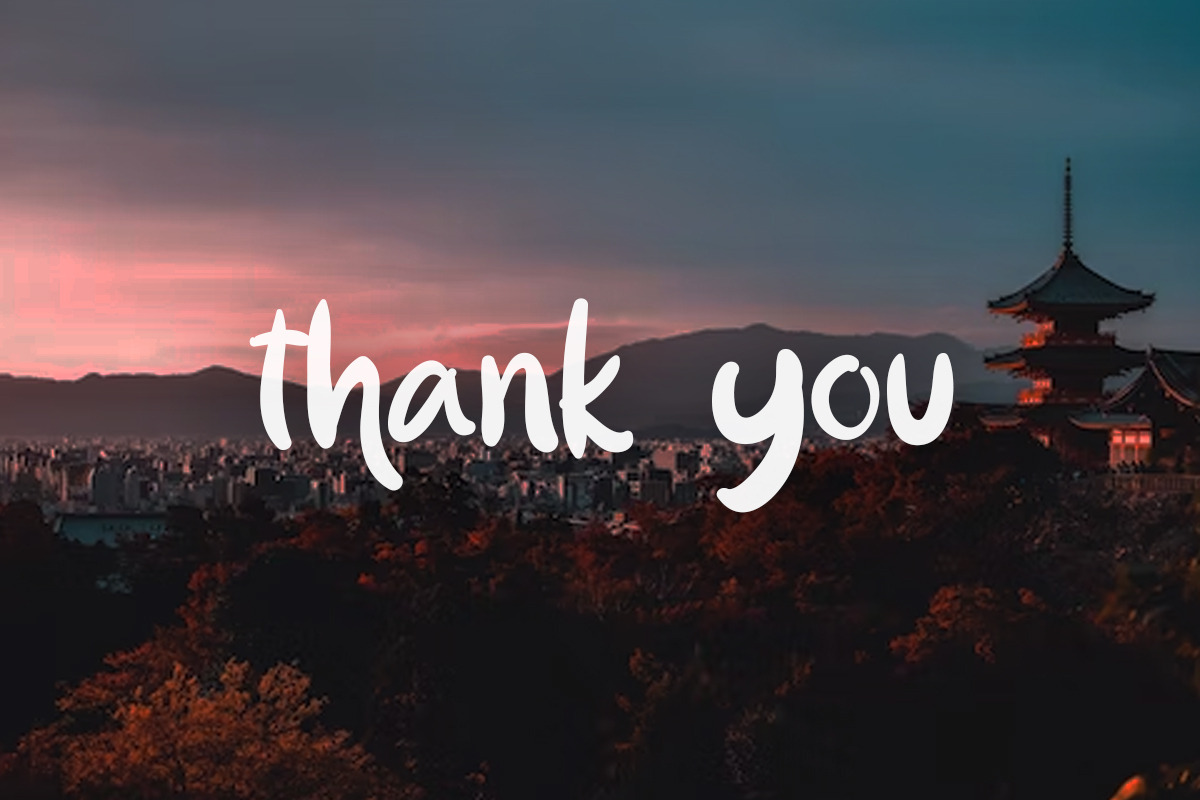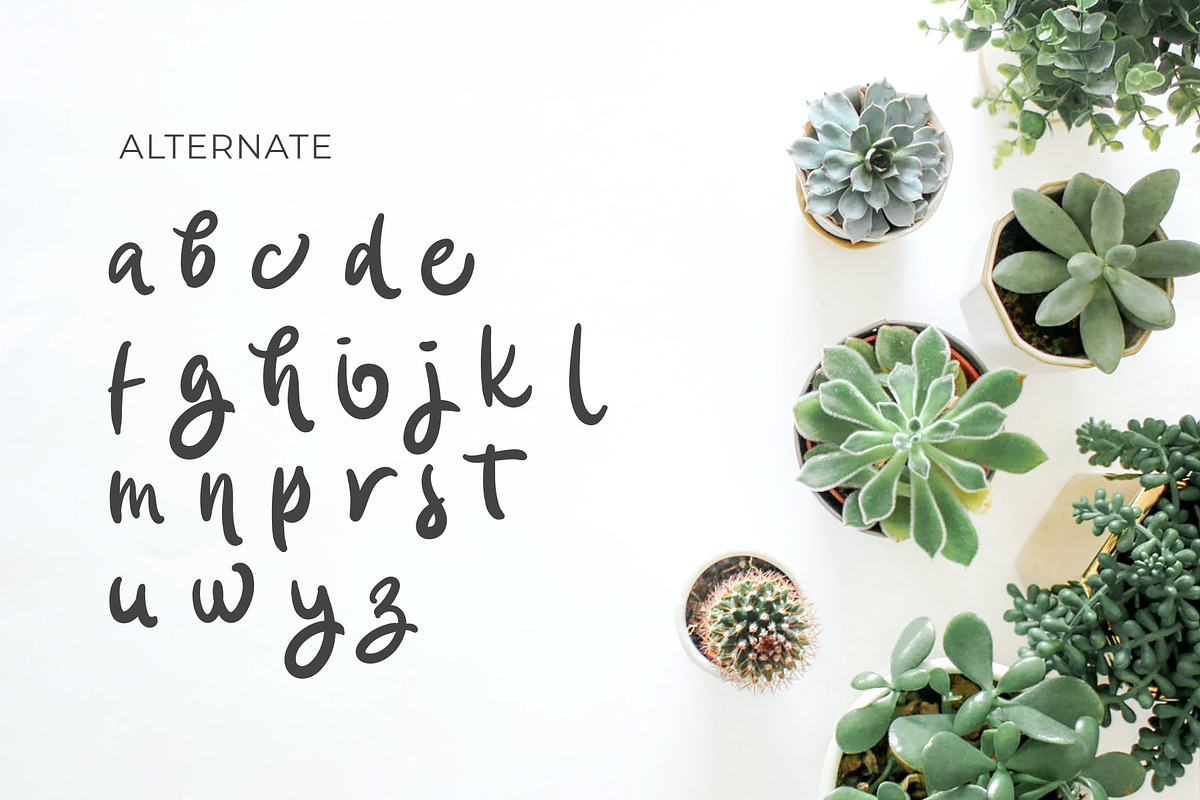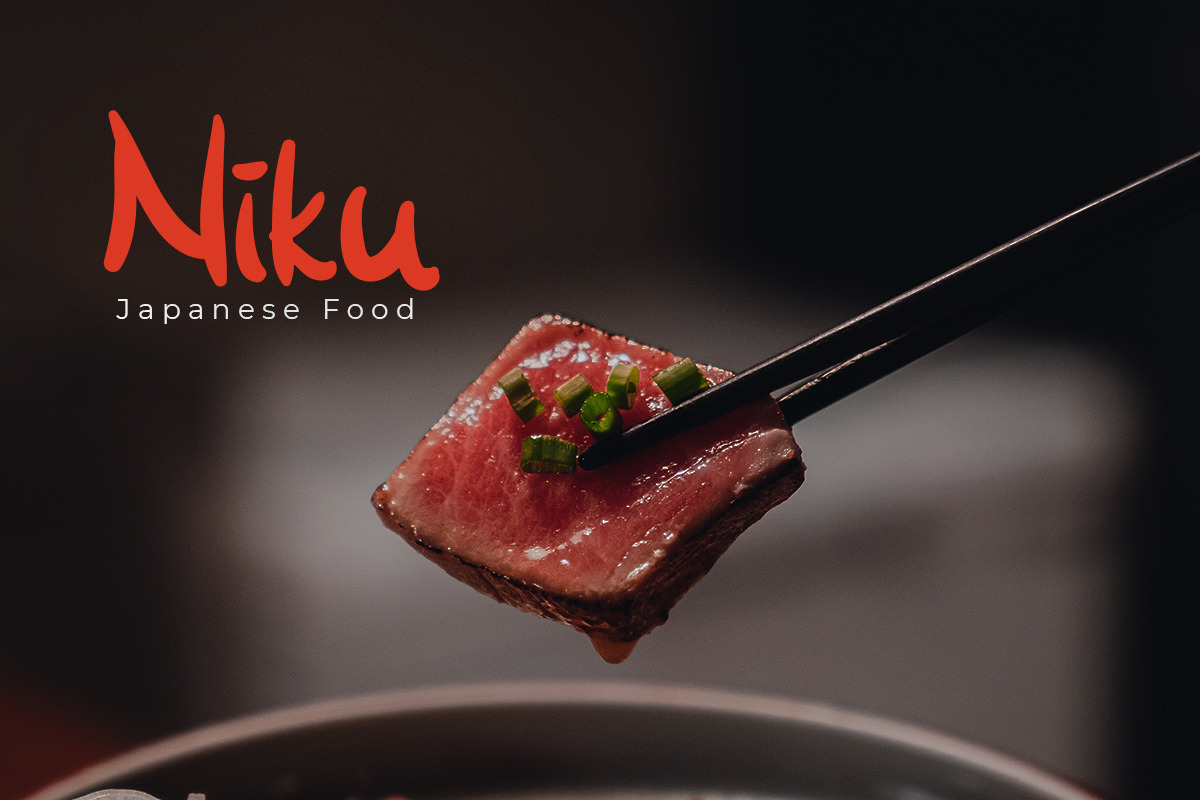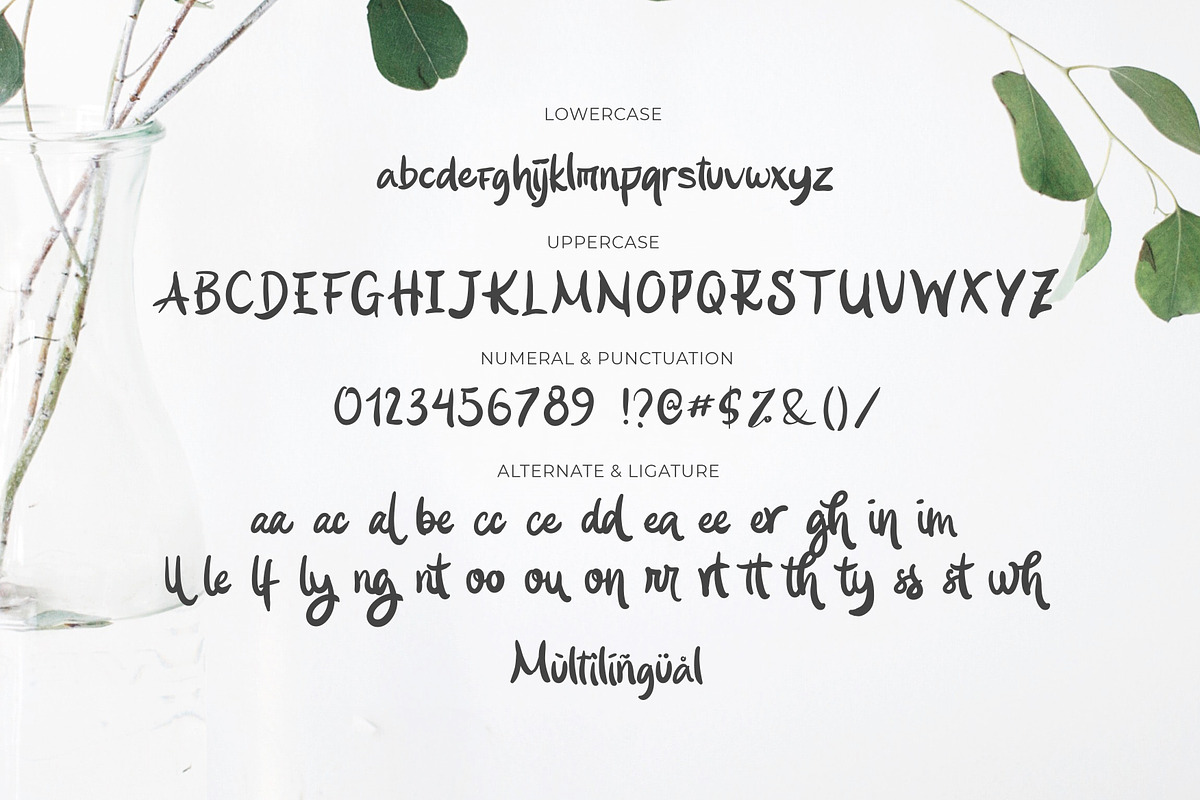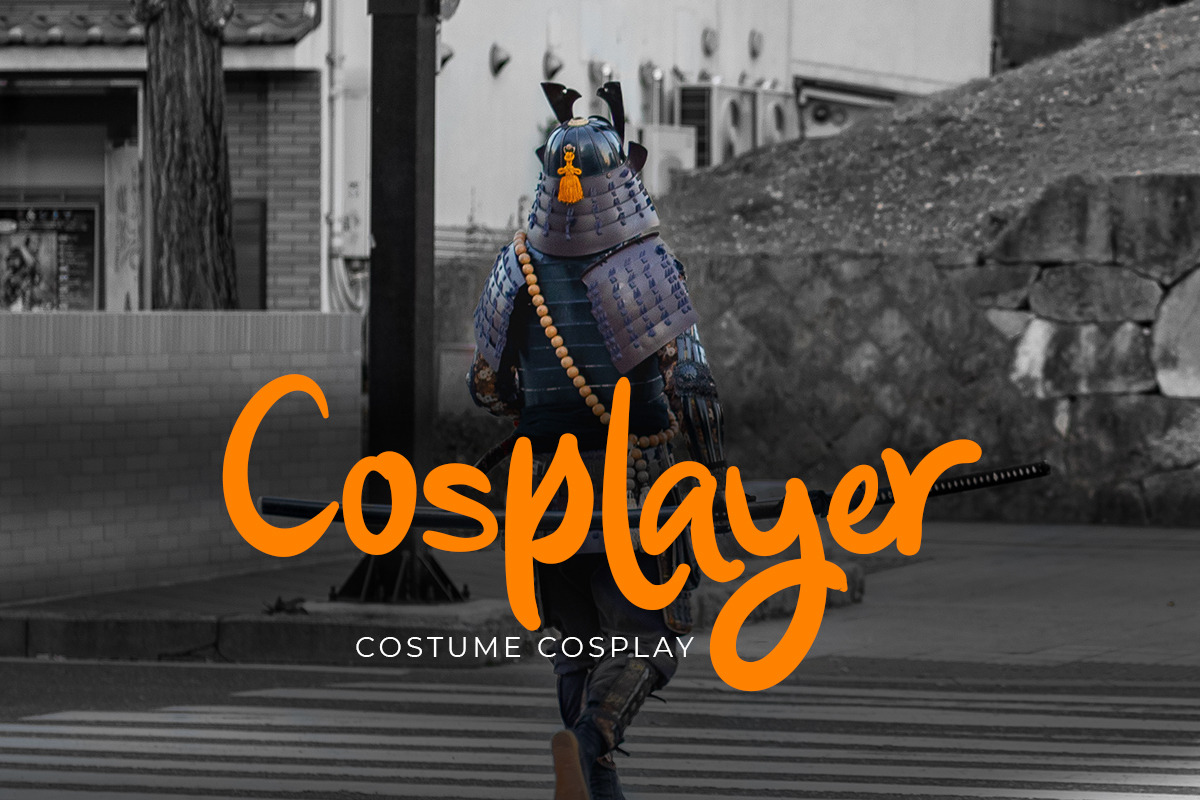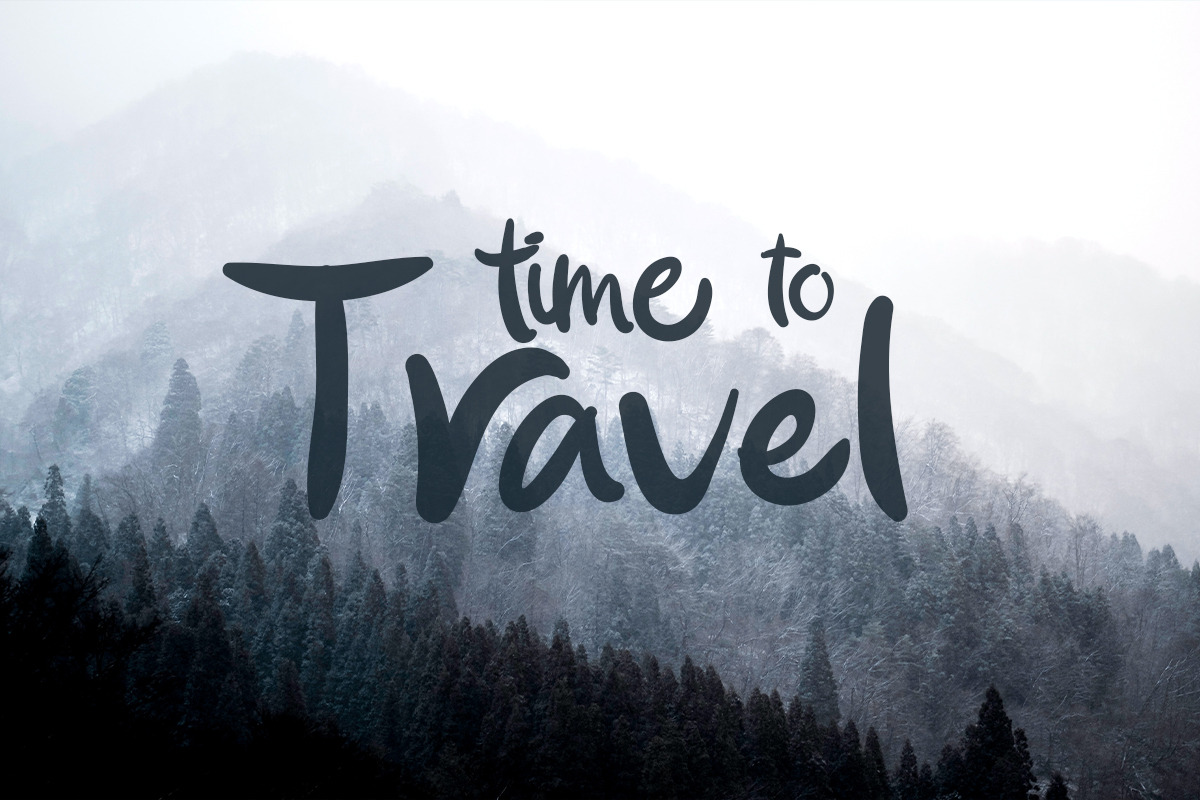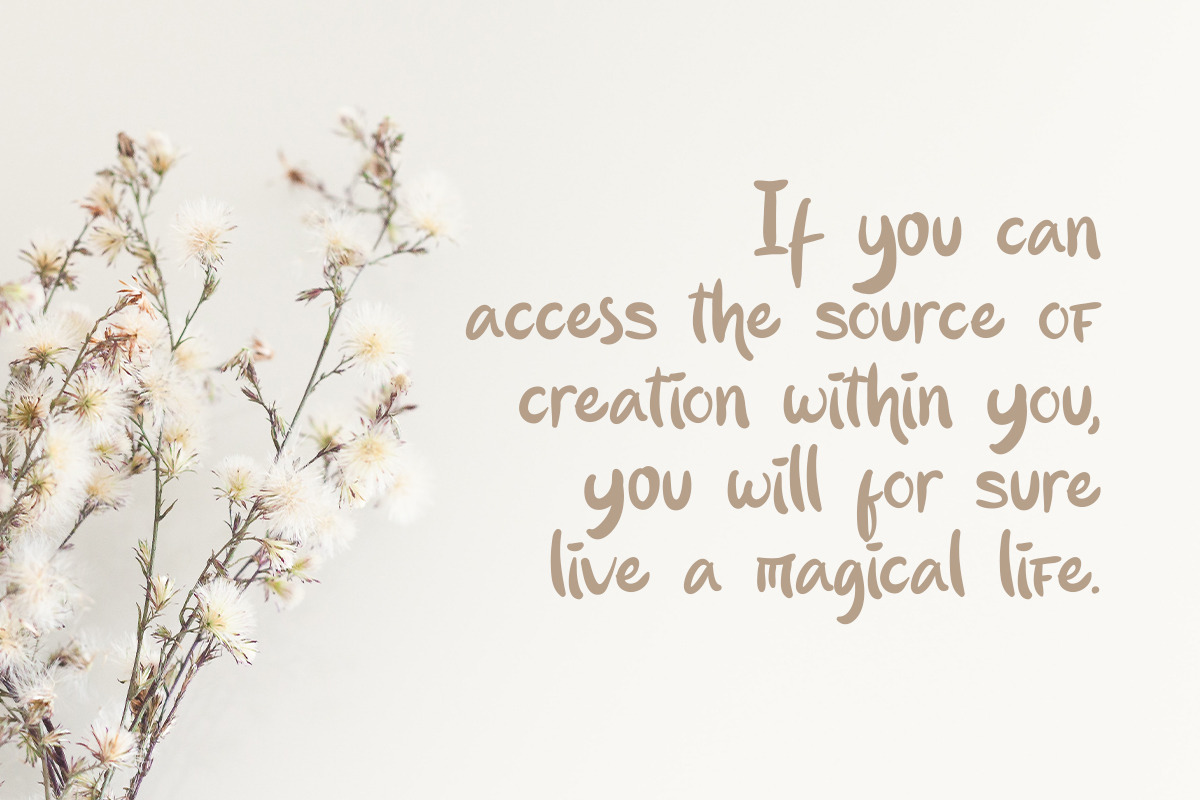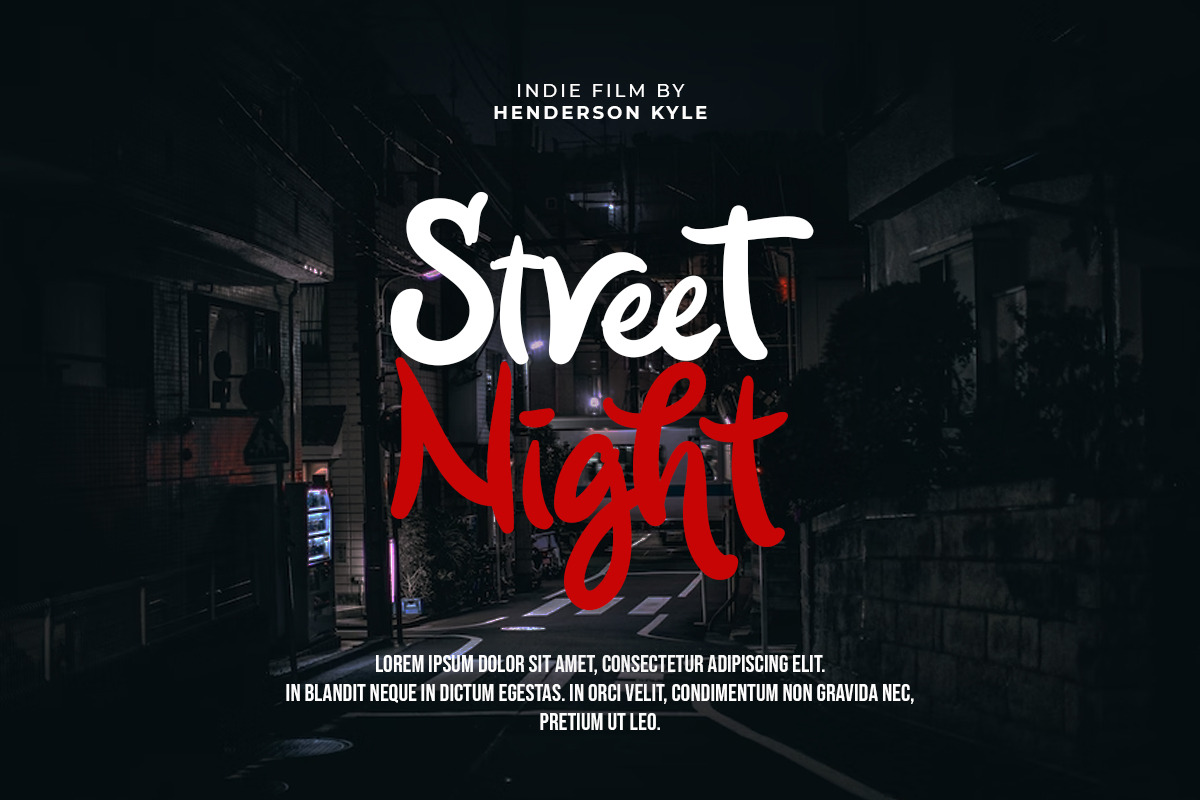
Siyuki Brush Script
Siyuki is a Script Font inspired by Japanese letters style, suitable for any Asian theme design & promotion to create a cool design!
Siyuki is perfect for branding, logos, movie posters, invitations, social media posts, product packaging, merchandise, blog designs, cute style designs, Book Titles/Covers and more.
- Numbers and Punctuation